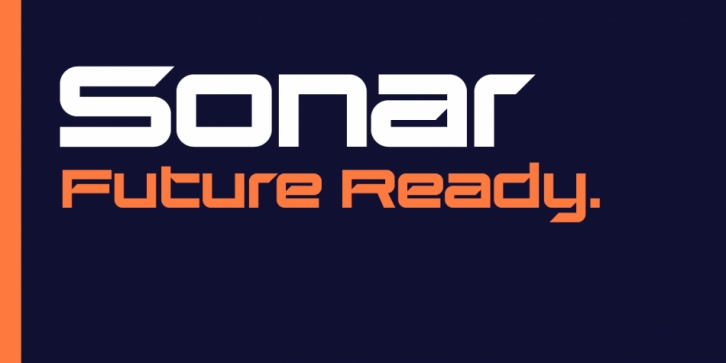
Designed by Craig Stainton, SB Sonar is a display sans font published by SelfBuild Type Foundry.
SB Sonar takes its inspiration from various science fiction films but somehow still manages to look like it was taken from VHS tape packaging from the 1980s. Perfect for electronic products or projects that require a technological feel or a retro future twist.